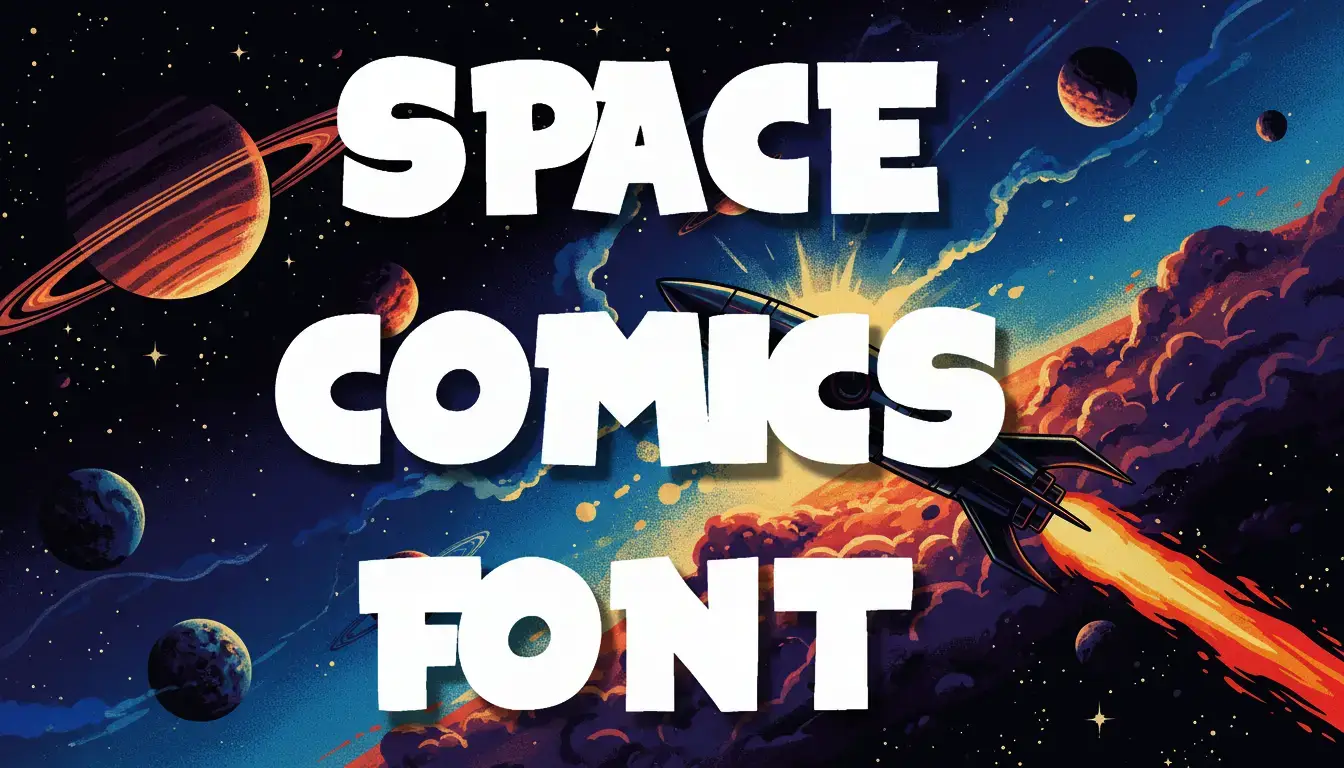
Space Comics Font
Space Comics
Space Comics is a fancy font designed by IMAGEX. Bold and full of character, it's built to stand out rather than blend in. You can download it for free and test it with your own words in the preview above.
What You Can Type With Space Comics
Space Comics is an all-caps font: it only has capital letters. Lowercase letters will show up in a different font or as empty boxes, so turn on Caps Lock when you type. All ten numbers are included. Common punctuation such as &, !, ? and @ is included as well. It has 29 accented letters, but not the full set for Spanish or French, so test any non-English words first.
Where Space Comics Works Best
Space Comics is a natural fit for posters, logos and eye-catching headlines. Use it for one standout word or headline and let simpler fonts handle the rest.
Does Space Comics support accented letters?
Partly. Space Comics has 29 accented letters, but not the complete set for Spanish, French or German. Type your words in the preview above to check before you use it.